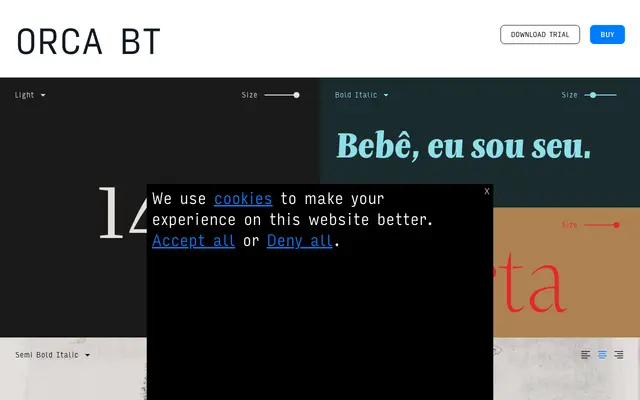
Orca BT specimen from Bastarda
A humanist sans from Bastarda spanning six weights with matching italics and a separate Display cut for headline use.
The family runs from Light to Bold across both upright and italic styles, with a dedicated Display variant for larger settings. Extended Latin coverage reaches across Western, Central and Northern European languages, including Baltic, Slavic and Nordic character sets. The pairing of a Display optical size alongside text weights gives it range across editorial and branding contexts.
The warmth of the letterforms and the fluid italics suggest a humanist sans construction, with a Display optical size and a range of text weights pointing to a family designed for editorial versatility.